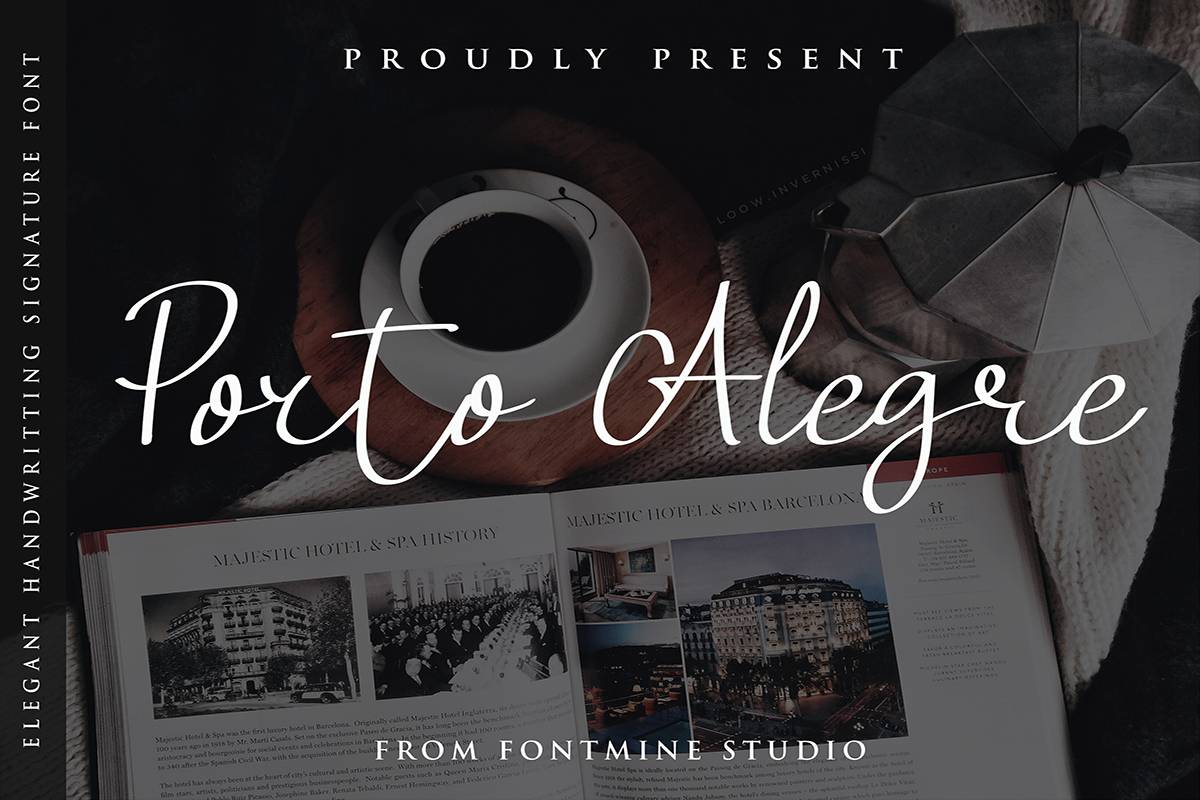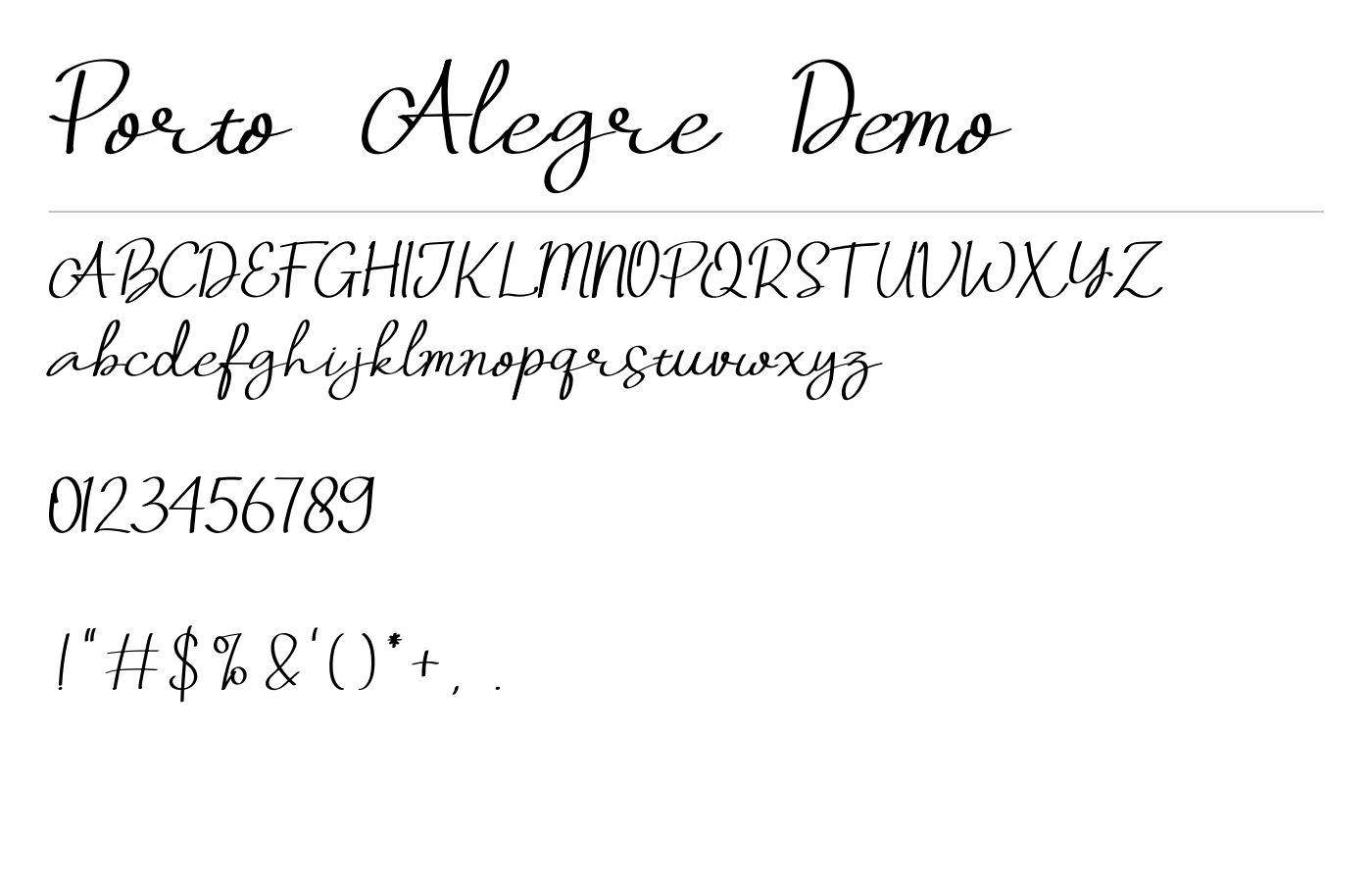
Porto Alegre is a delicate script font with a light, elegant stroke and a natural, handwritten feel. Its slender, slightly slanted letterforms feature smooth curves and graceful loops, making it perfect for projects that seek a personal, stylish touch such as invitations, branding, and editorial design. This font excels in adding a refined, sophisticated charm to any design while maintaining readability and a friendly personality.
Porto Alegre Font
About Porto Alegre Font
| Font family | Porto Alegre Font |
| Designer | Ahmad Kartiwa |